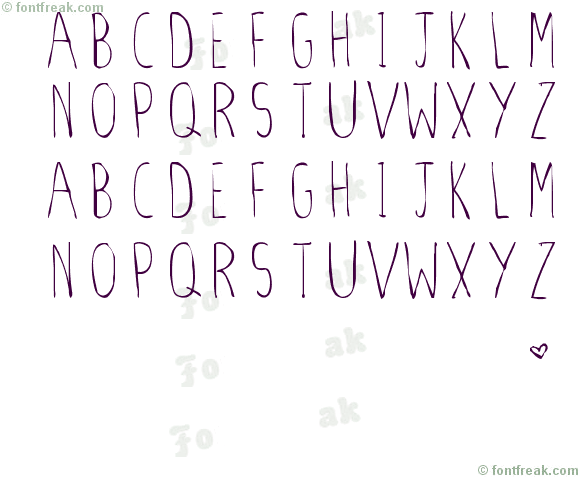
Stiletto Skinny
About Stiletto Skinny
Stiletto Skinny, designed by Harriet Barley, is a captivating display font that falls into the category of decorative typefaces. Its slender, elongated letterforms exhibit a chic and modern aesthetic, characterized by a consistent stroke weight that creates an elegant visual flow. The contrast between the thin lines and the slight curvature of certain letters adds a touch of sophistication. The spacing is well-balanced, allowing for easy readability while maintaining a stylish appearance.
This font is an excellent choice for a variety of creative projects. It shines in wedding invitations, where its delicate elegance can enhance the romantic theme. For fashion magazines or lookbooks, Stiletto Skinny offers a trendy flair that aligns perfectly with contemporary design trends. Restaurant menus can benefit from its stylish presentation, providing a sophisticated touch to the dining experience. Additionally, it works remarkably well for branding and logo design, helping small business owners establish a distinctive visual identity.
The target audience for Stiletto Skinny includes graphic designers, content creators, and small business owners who are looking for a unique typeface to elevate their projects. Its versatility makes it suitable for various applications, from digital media to print design.
What sets the Stiletto Skinny font apart is its ability to blend elegance with modernity. Its graceful lines and contemporary style make it not just a font, but a statement piece that can transform any design. For those interested in adding a touch of sophistication to their work, the Stiletto Skinny font free download is an opportunity not to be missed. Embrace the charm of this font and let it inspire your next creative endeavor.